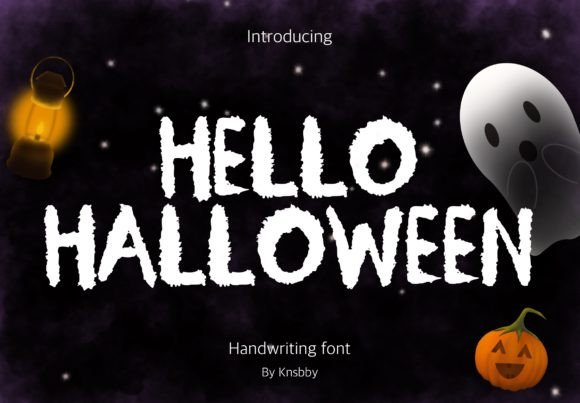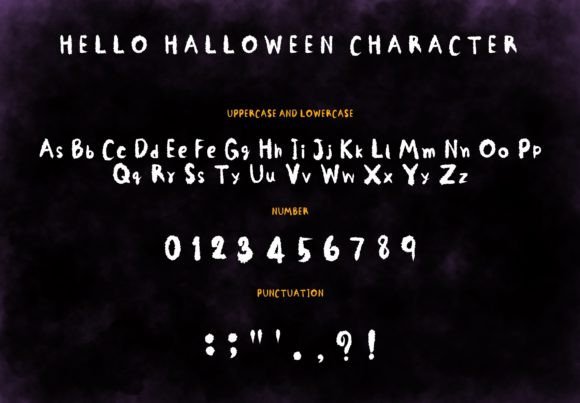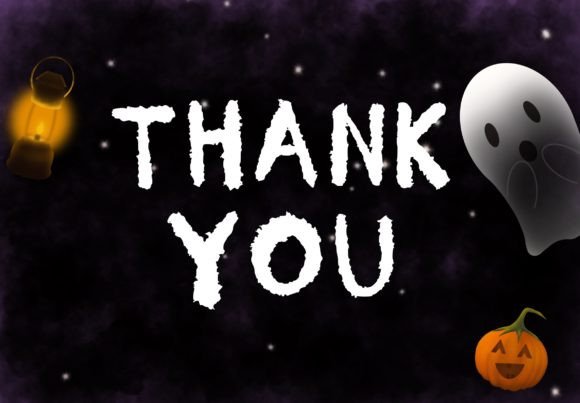
About Hello Halloween Font
Hello Halloween brings a delightful touch of spookiness to your creative projects with its fun and handwritten style. This font is the perfect choice for anyone looking to infuse a bit of Halloween spirit or a spooky vibe into their designs.
The whimsical and playful nature of Hello Halloween makes it an ideal companion for a variety of Halloween-themed projects. Whether you’re creating party invitations, posters, social media graphics, or any other materials related to this festive and spooky season, Hello Halloween adds a unique charm.
The handwritten style of the font contributes to its approachable and friendly feel. It’s not overly frightening, making it suitable for a wide range of audiences, including children’s events, school activities, or themed parties where a lighthearted and fun approach to Halloween is desired.
The scary accent in Hello Halloween adds a touch of mystery and excitement to the font. It can be used to highlight certain words or elements in your designs, emphasizing the Halloween theme and creating visual interest.
One of the advantages of Hello Halloween is its versatility. The font can be applied to various design projects, such as greeting cards, banners, flyers, or even as part of your Halloween decorations. Its adaptability allows you to explore different creative avenues while maintaining a consistent and thematic look.
Whether you’re a designer working on professional projects or someone creating DIY Halloween crafts, Hello Halloween provides a playful and spooky typeface that captures the essence of the season. Its handwritten charm adds a personal touch to your designs, making them stand out and engage your audience.
In summary, Hello Halloween is more than just a font; it’s a tool that helps you convey the spirit of Halloween in a creative and engaging way. Whether you’re aiming for a cute and friendly Halloween look or a slightly spooky atmosphere, Hello Halloween is your go-to font for adding a touch of the supernatural to your designs.